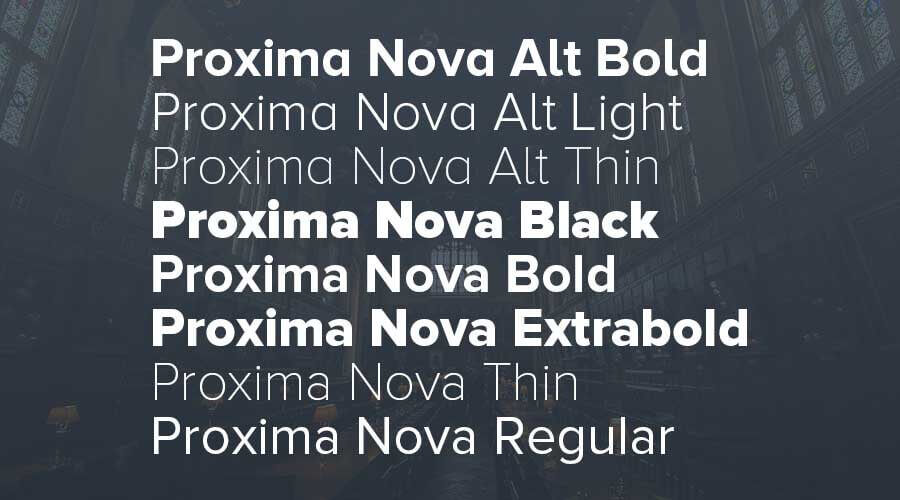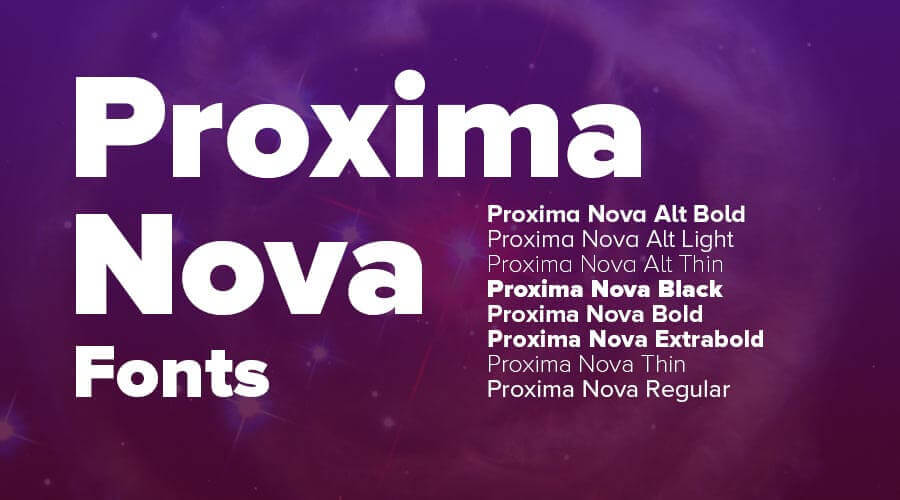
Proxima Nova Font
Here is the Proxima Nova Font that is one of the most used fonts of the google fonts. This font will supply your writing capabilities and make them appealing. Now, the awesome’s corporations inc took the all right reserved for this company. It‚Äôs headquarter positioned in downtown north.
This is derived from the Squirrel font. Consequently, it turns into a gift-day manufacturer with a large patron base. So, on the triumphing, we wanna talk about the font own family used for the designing of its logo. Proxima Nova Font  Free Because of the reality, pretty a few sorts of designers from some of the typeface and create some new designs just like volkswagen font that does not forget about unique from others.